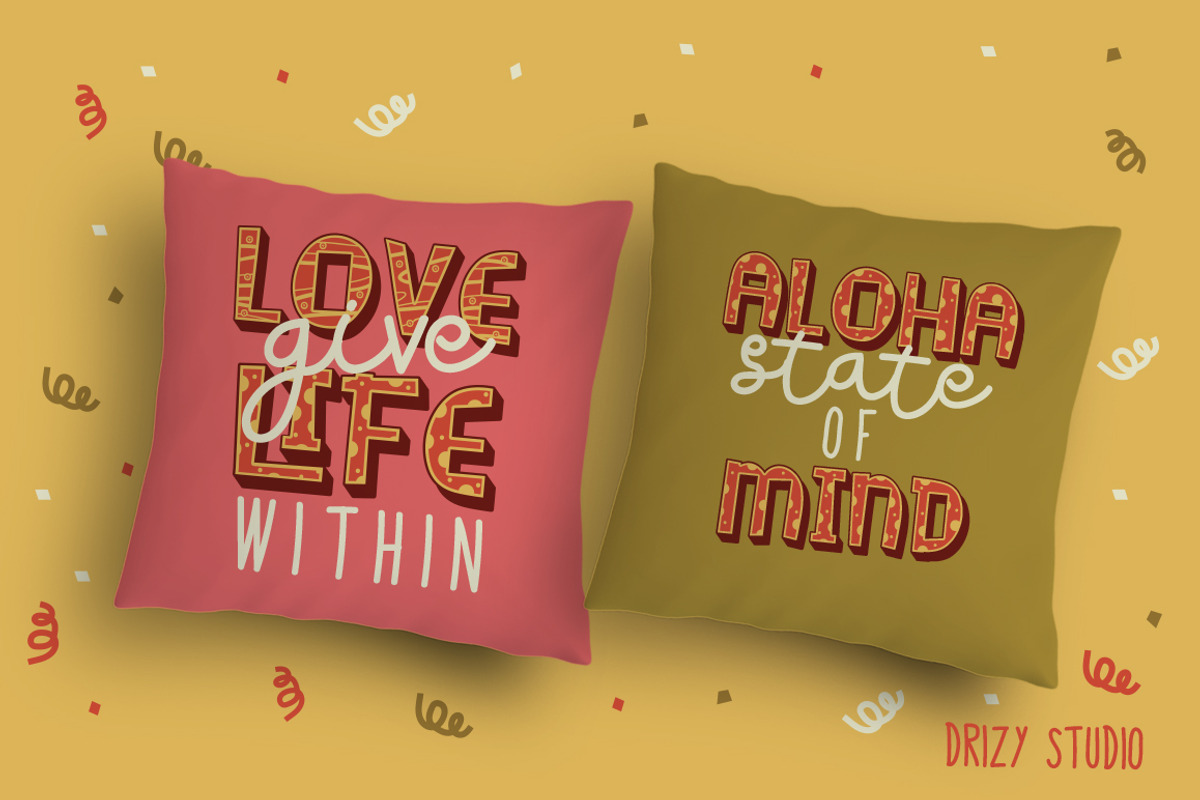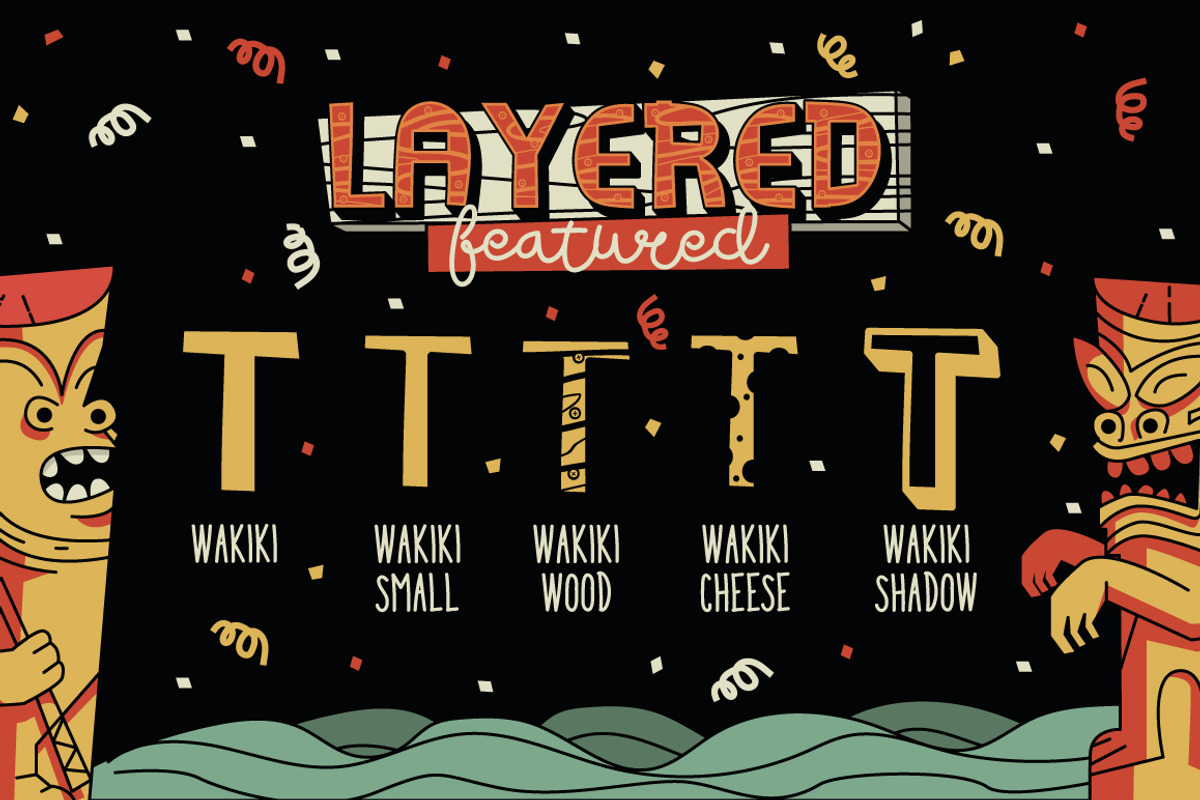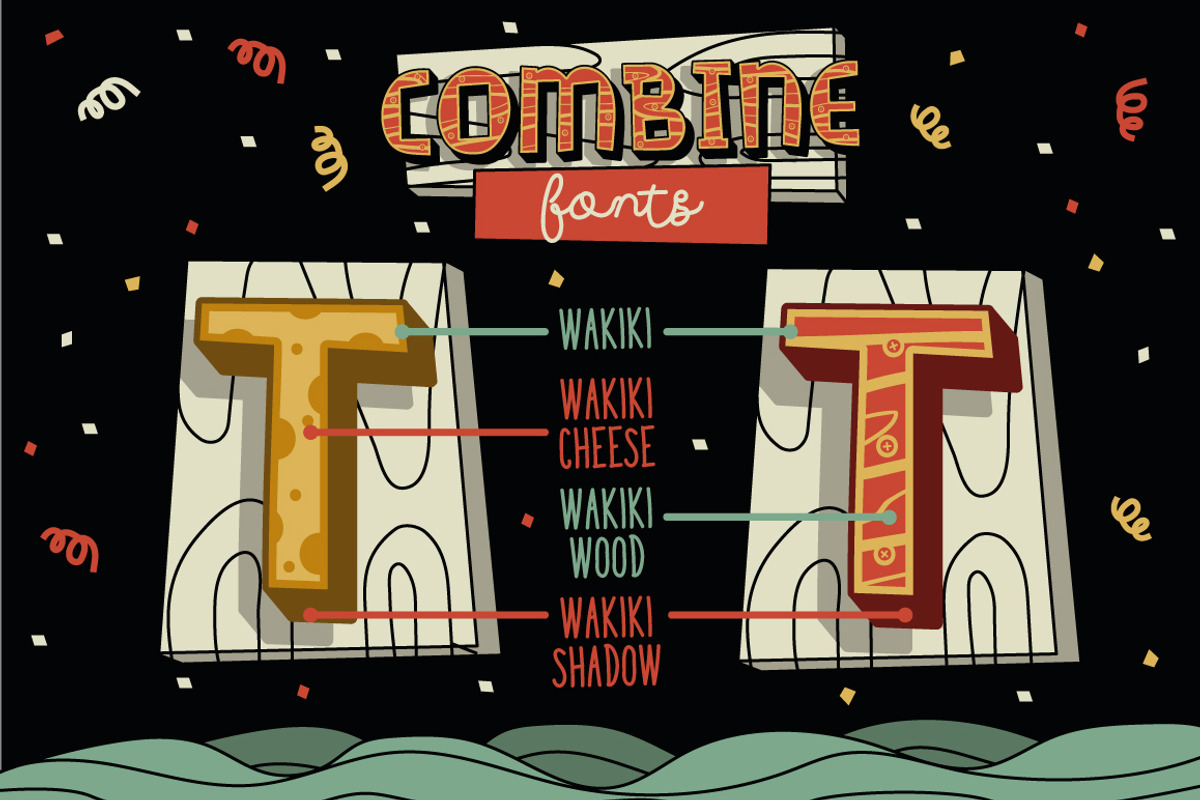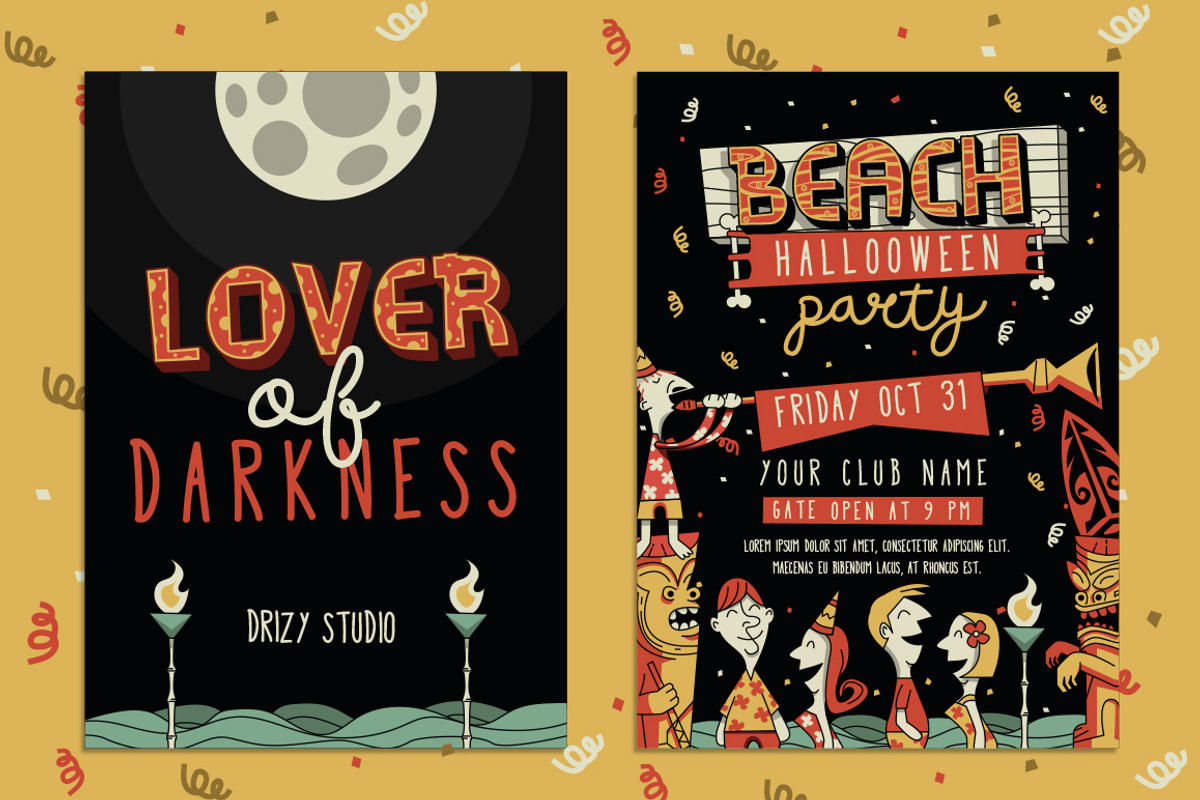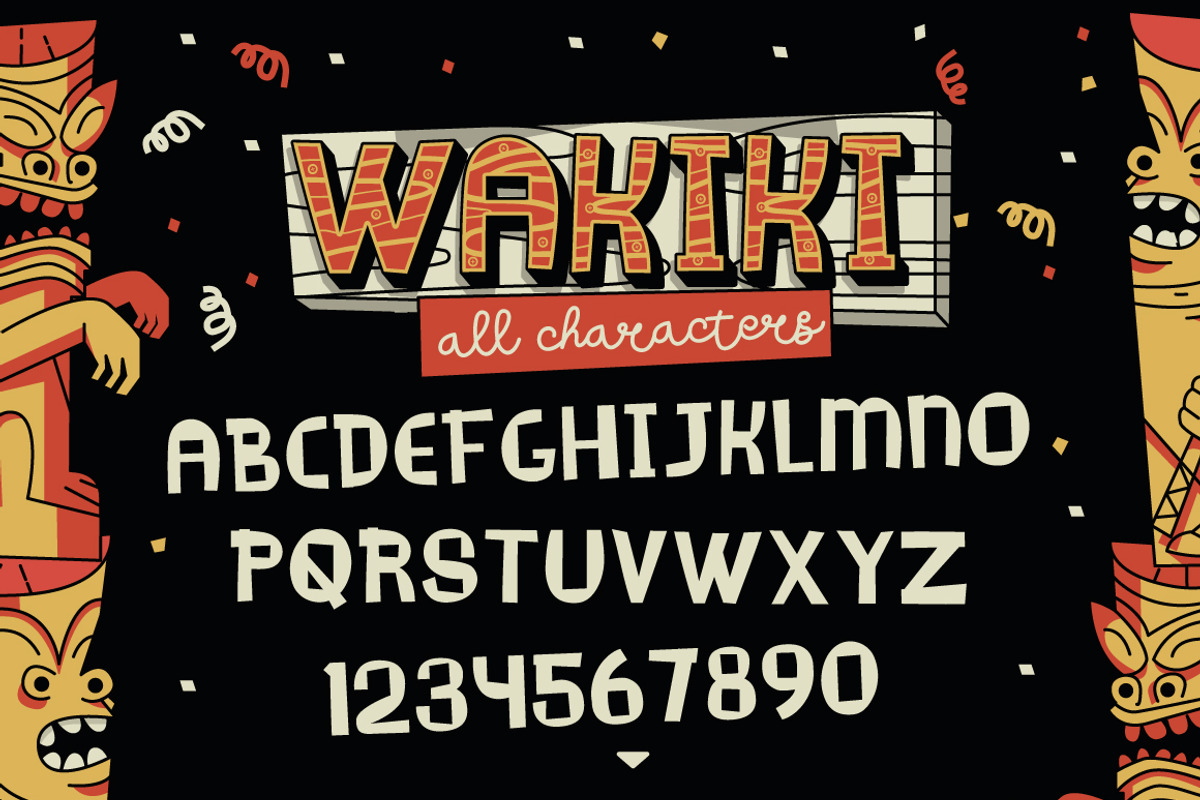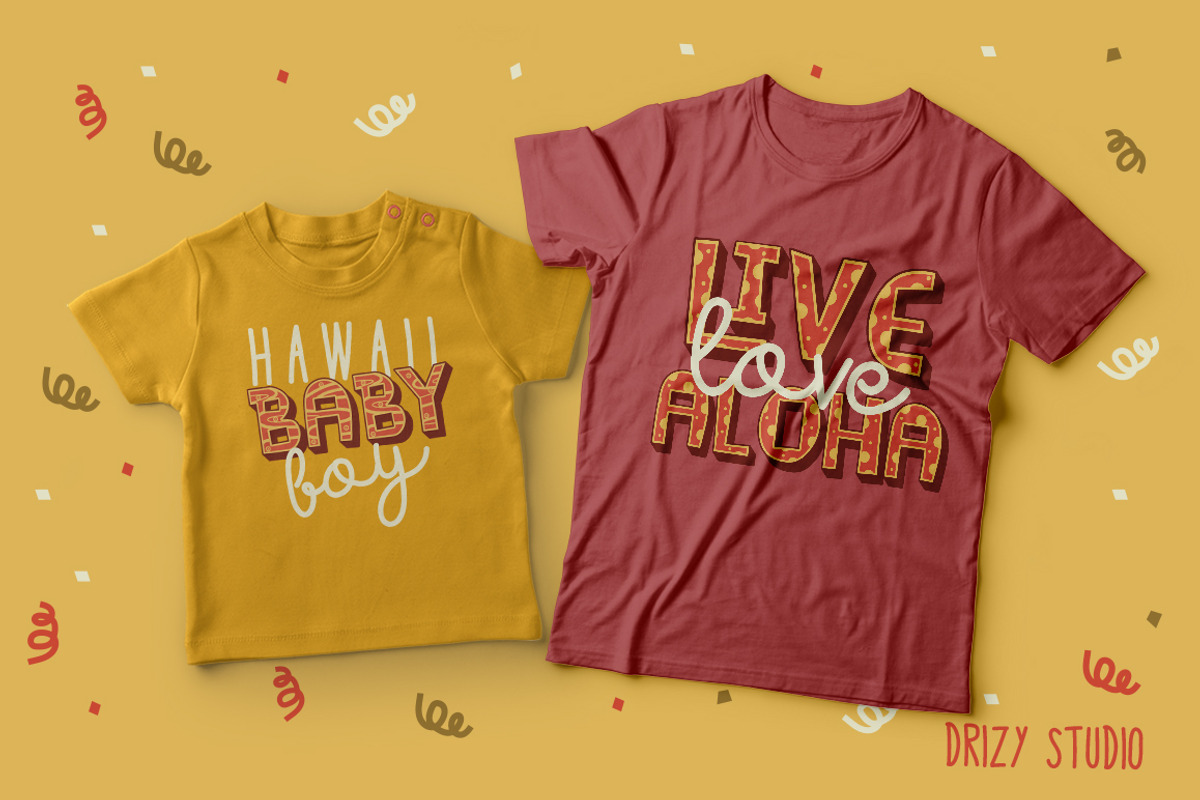
Wakiki Layered Typeface + Bonus
WAKIKI LAYERED TYPEFACE
Introducing Wakiki !! a fontastic layered set, inspired from beautiful Hawaiian look. Create your own style as you want with 3 Layers. Wakiki consist of a shadow layer, to make your design more alive. And especially, with a woodtexture and delicious cheese appearance, conveys an exotic and tropical mood. This font will be awesome for designing poster, book covers, film covers, apparel, cards, logos, posters, sign etc.